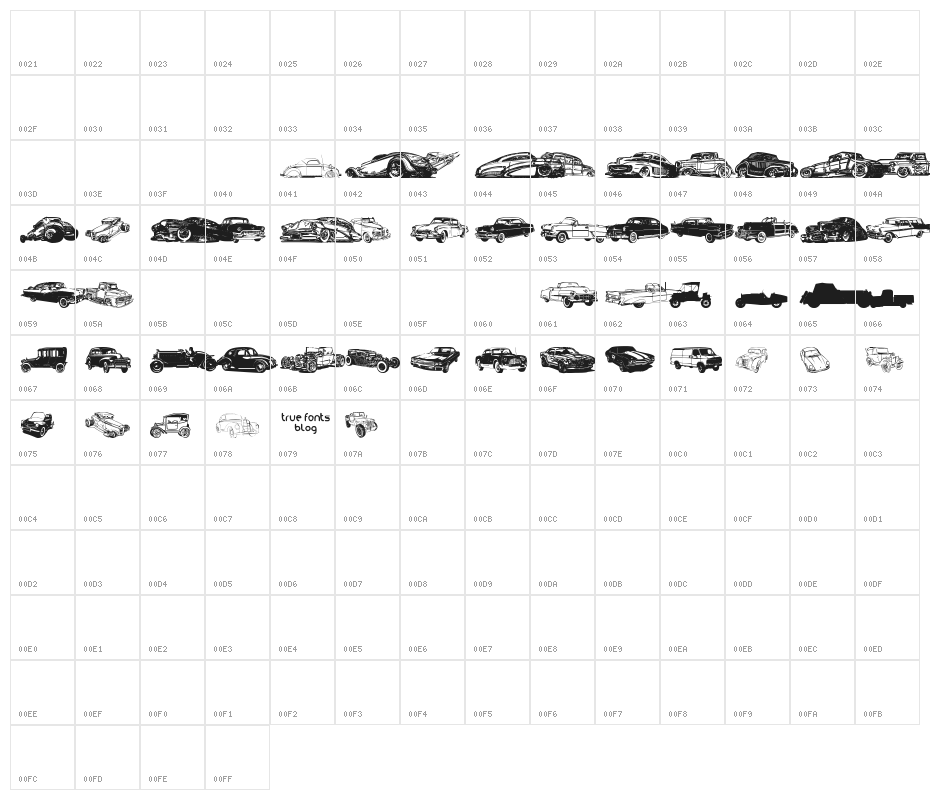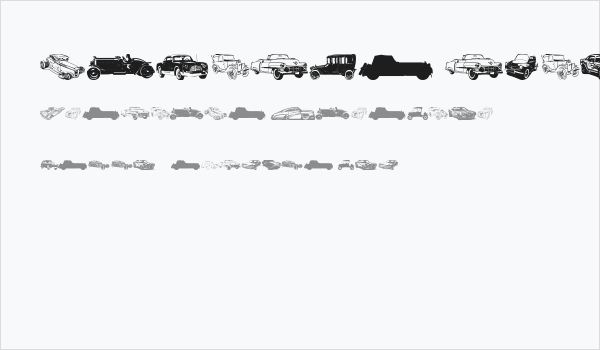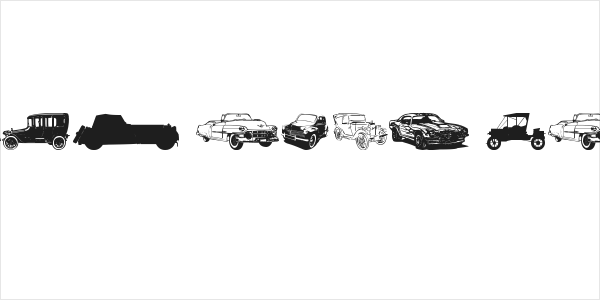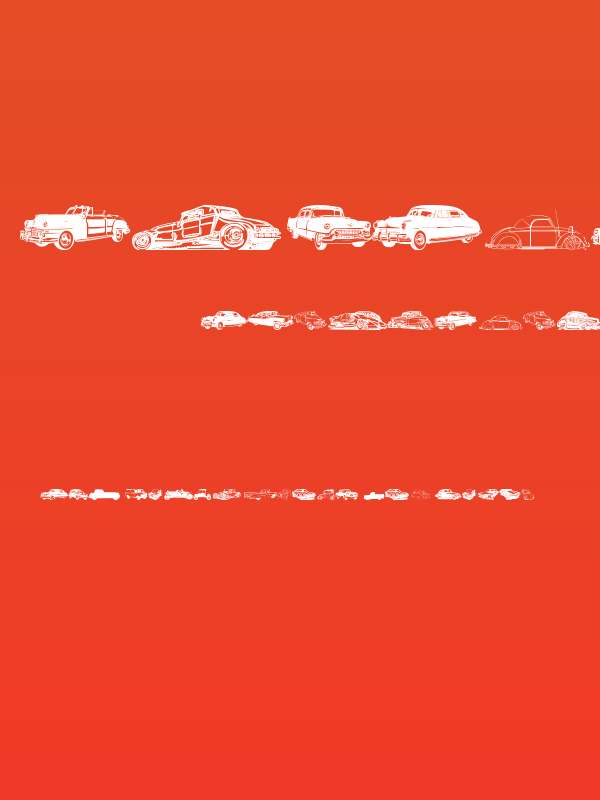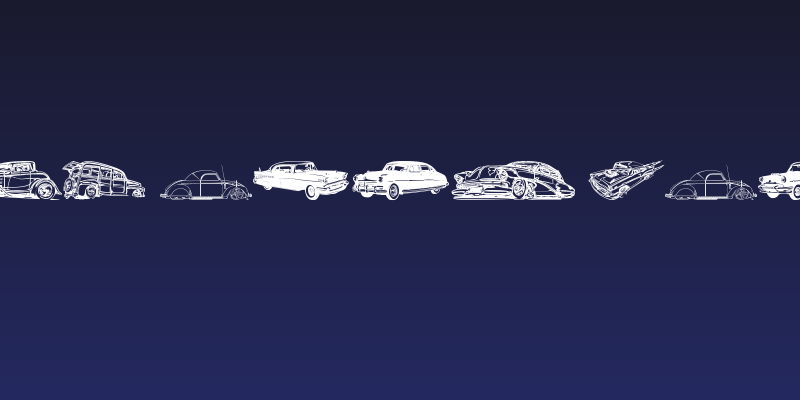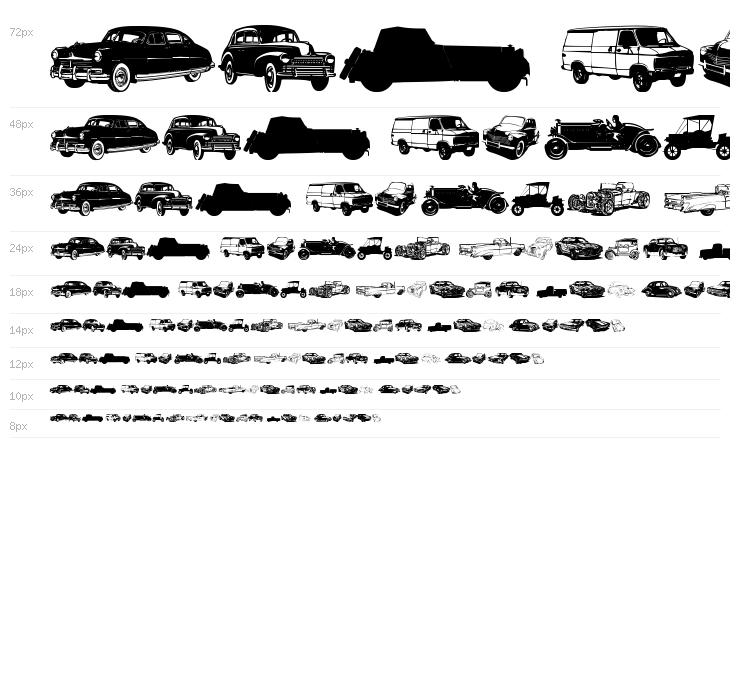
vintage auto cars tfb Font
vintage auto cars tfb Description
A decorative dingbat font featuring detailed illustrations of vintage automobiles, each character representing a different classic car in various perspectives and levels of detail.
| Overall Style | Vintage, Decorative |
| Use Case | Logos, Posters, Themed Graphics, Scrapbooking |
| Proposed Projects | Automotive posters, retro event flyers, themed party invitations, car club branding, educational materials about classic cars. |